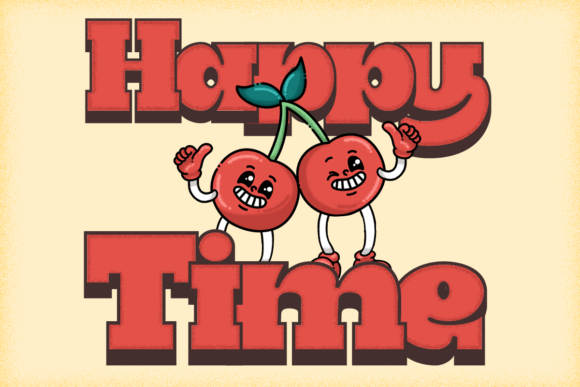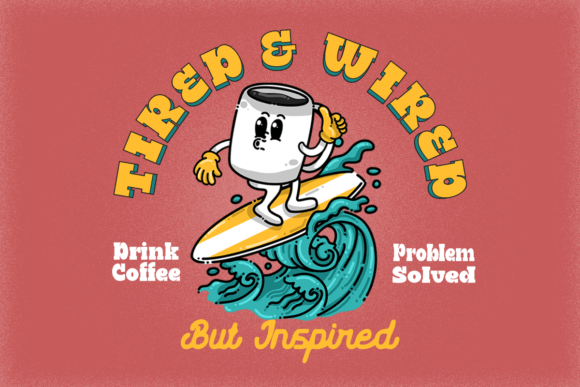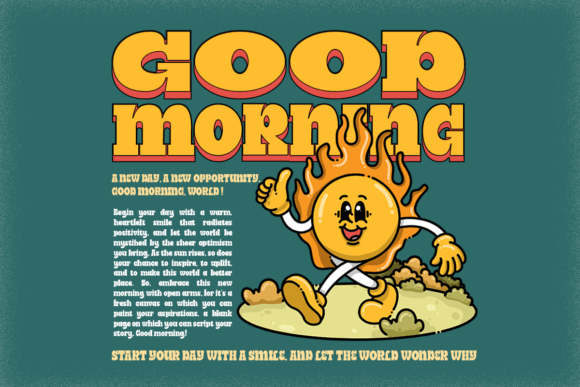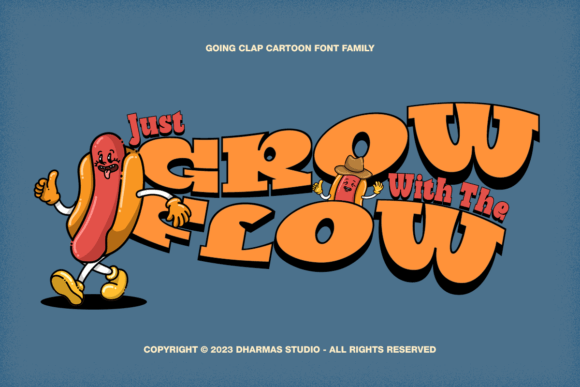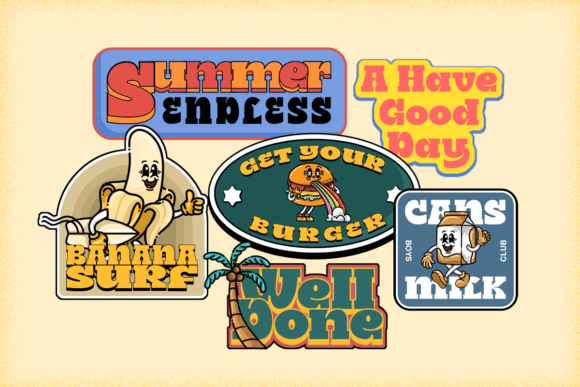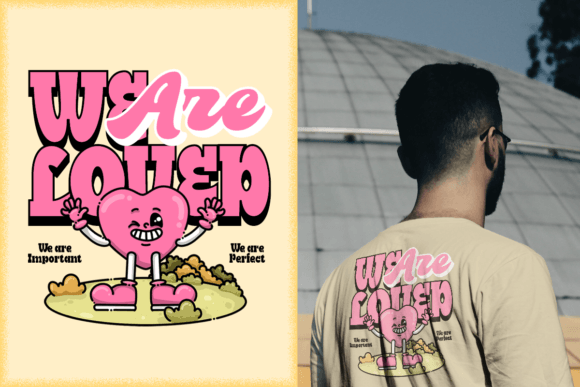
Introducing Going Clap: The Ultimate Font for Bold and Nostalgic Vibes
Are you tired of using the same old fonts that fail to make a statement? Look no further than Going Clap, the chunky slab serif typeface that’s about to become your secret weapon for making text pop with artistic and vintage flair. With its bold and nostalgic vibes, Going Clap is the perfect font for designers and crafters looking to add a touch of character to their projects.
What Makes Going Clap So Special?
Going Clap is more than just a font – it’s a collection of 8 unique font families that cater to a wide range of design needs. Whether you’re looking for a condensed font for tight spaces or an expanded font for making a statement, Going Clap has got you covered. The font families include:
- Condensed: Perfect for tight spaces and headlines
- Normal: Great for body text and general use
- Semi Expanded: A balance between condensed and expanded fonts
- Expanded: Ideal for making a statement and grabbing attention
- And their cool shadow versions for added depth and dimension
The Power of Versatility
One of the standout features of Going Clap is its versatility. With 8 unique font families, you can use it for a wide range of projects, from:
- Headlines and titles
- Body text and paragraphs
- Signage and display text
The Bonus You Won’t Want to Miss
But that’s not all – when you choose Going Clap, you’ll also get a fantastic bonus: 56 retro mascot illustrations. These illustrations are the perfect way to add a touch of character and nostalgia to your designs. Imagine being able to add a cute cartoon character to your logo or a fun illustration to your social media graphics. The possibilities are endless!
Why Designers and Crafters Love Going Clap
So why do designers and crafters love Going Clap? Here are just a few reasons:
- Unique and eye-catching designs: Going Clap’s bold and nostalgic vibes make it perfect for designers and crafters looking to create unique and eye-catching designs.
- High-quality fonts and illustrations: The font and illustrations are of high quality, making them perfect for professional designs.
- Easy to use: Going Clap is easy to use, even for those who are new to design.
- Versatile: The font and illustrations can be used for a wide range of projects, making it a great value.
Get Ready to Take Your Designs to the Next Level
If you’re looking for a font that will take your designs to the next level, look no further than Going Clap. With its bold and nostalgic vibes, 8 unique font families, and 56 retro mascot illustrations, it’s the perfect tool for designers and crafters looking to add a touch of character to their projects. So why wait? Get Going Clap today and start creating designs that pop!
In conclusion, Going Clap is a game-changing font that’s perfect for designers and crafters looking to add a touch of bold and nostalgic vibes to their projects. With its 8 unique font families and 56 retro mascot illustrations, it’s a versatile and valuable tool that’s sure to take your designs to the next level. So don’t miss out – get Going Clap today and start creating designs that pop!